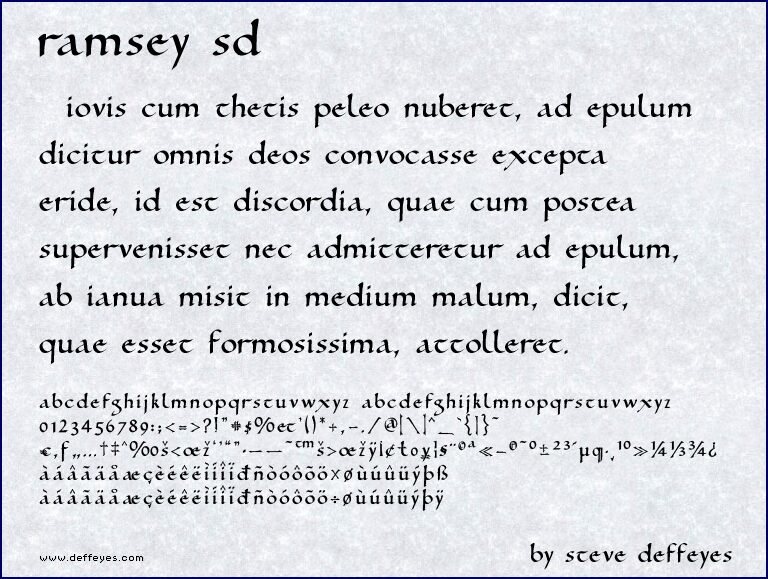
Ramsey SD by Steve Deffeyes is a free calligraphic display font with broad, dark strokes and abrupt hairline turns. Its pointed joins and sweeping curves feel theatrical and slightly unruly.
Event posters are a natural fit because the lettering has the scale and motion of a hand-painted show bill, and the same flourish suits album covers, festival graphics, and fashion packaging. The recurring blade-like tips and curled stroke endings can echo ribbons, stage drapery, or ornamental illustration, so the lettering can become part of the artwork rather than a neutral caption.
This typeface is based on the 10th-century Ramsey Psalter. The Victorian calligrapher Edward Johnston based his Foundational Hand on it. It uses lowercase letters because body text was written that way at the time.